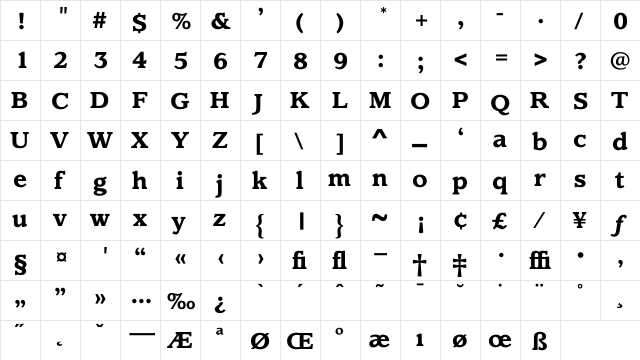
ClaremontBold Regular
Design Context for ClaremontBold Typeface
ClaremontBold offers clean, dependable letterforms without strong stylistic allegiance, making it a practical choice for designers who need flexibility. The heavy weight commands attention and anchors typographic hierarchies.